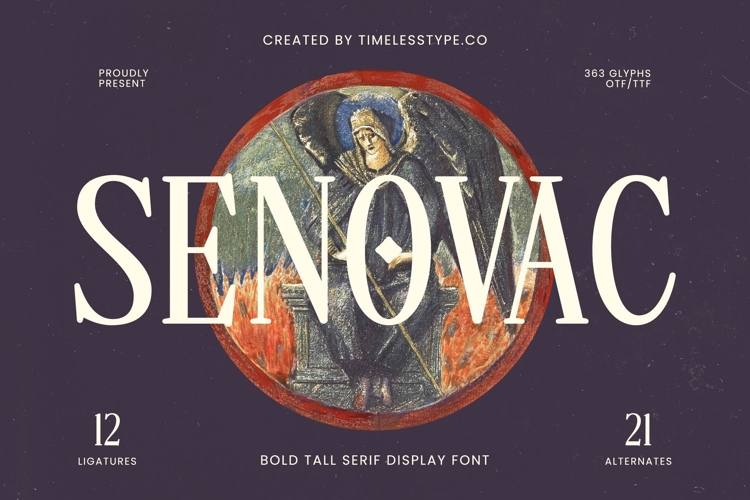
Senovac - Bold Tall Serif Display Font
Unlock unparalleled visual impact with Senovac - Bold Tall Serif Display Font, a quintessential choice for designers aiming for sophistication and prominence. This bold tall serif display font commands attention with its striking high-contrast letterforms and elegant proportions. Each character is crafted to exude an aura of refined strength, ensuring your message is not just seen, but felt, leaving a lasting impression of premium quality.
Experience design freedom through meticulous craftsmanship and expansive functionality. Senovac - Bold Tall Serif Display Font boasts a rich set of features, including elegant ligatures and stylish alternates, allowing for truly customizable typography. With its extensive multilingual support, Senovac - Bold Tall Serif Display Font adapts seamlessly across global markets, making it incredibly versatile for international projects and ensuring your brand resonates worldwide.